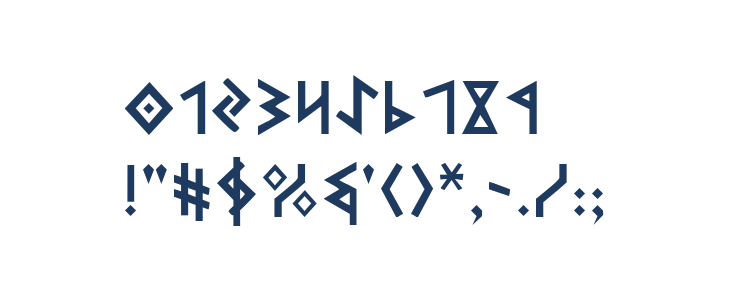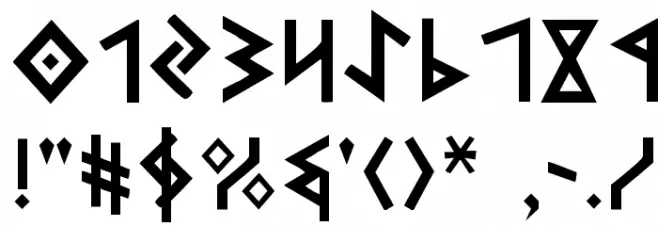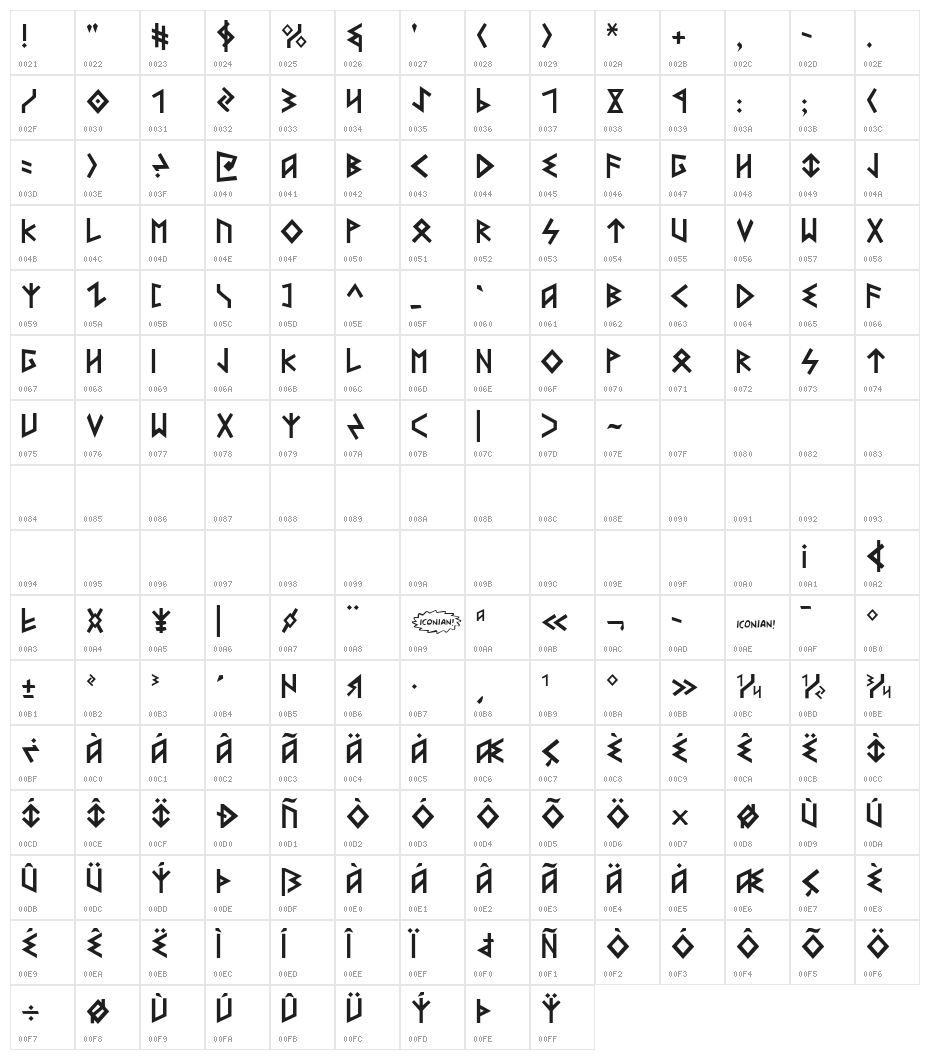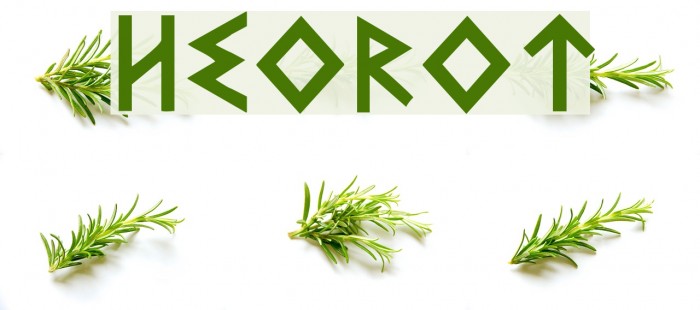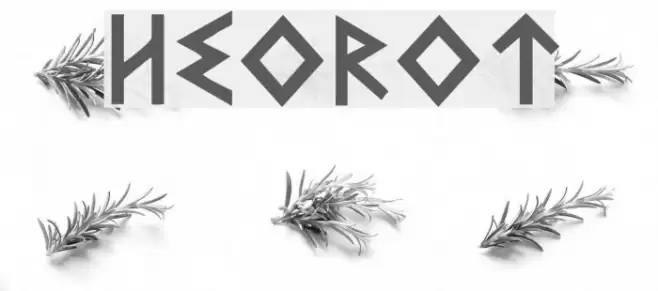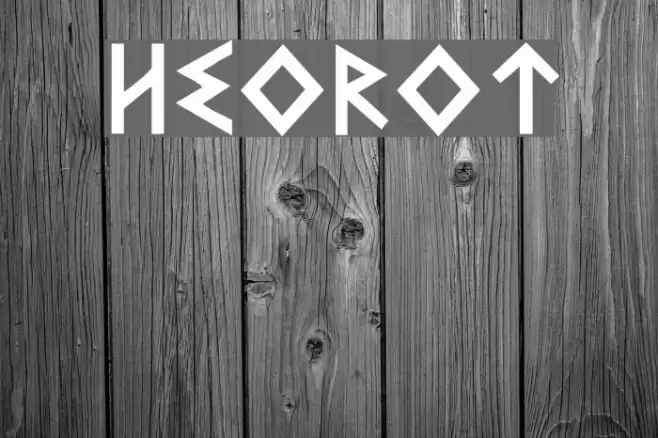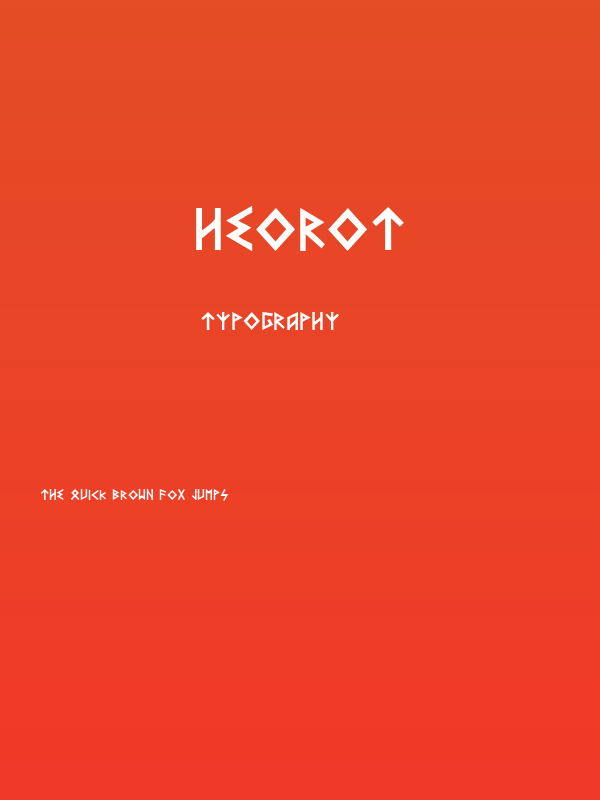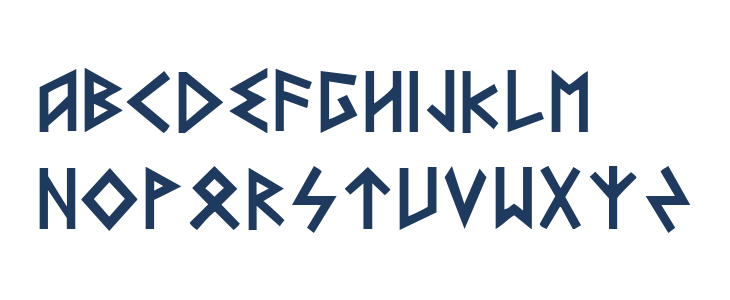
Heorot Font
Heorot Description
This font features a bold, geometric style with sharp angles and a distinct, rune-like appearance. Each character is crafted with strong lines and a uniform thickness, creating a cohesive and striking visual impact. The uppercase and lowercase letters maintain a consistent design, with unique angular forms that evoke a sense of ancient script or tribal art. Numbers and special characters follow the same stylistic approach, ensuring a harmonious look across all elements. The font's boldness and unique character shapes make it ideal for projects that require a dramatic and eye-catching typeface.